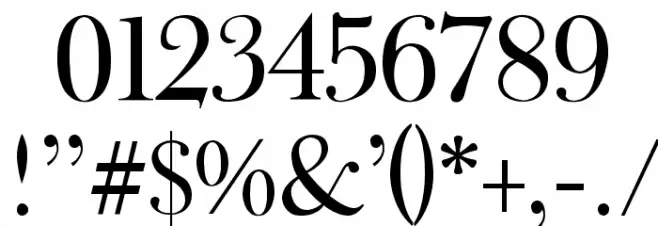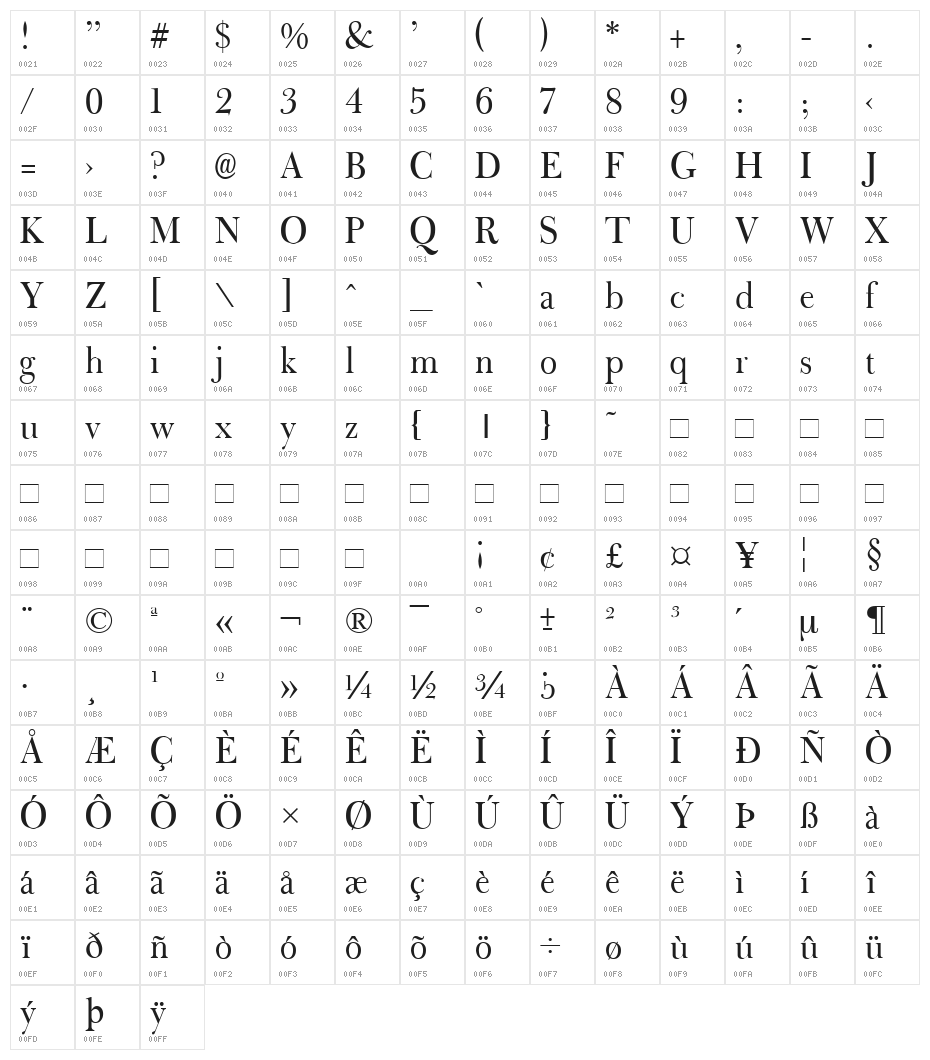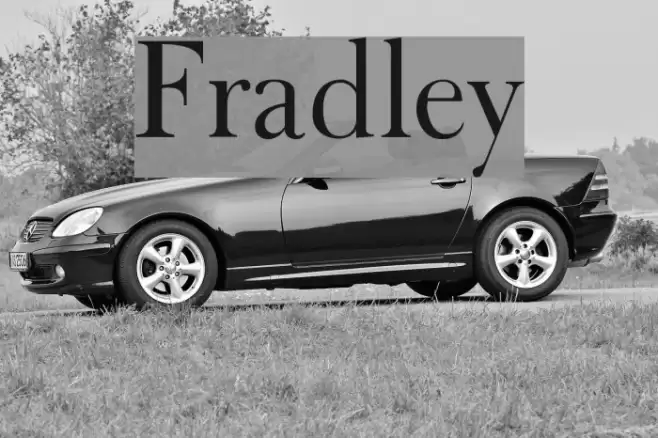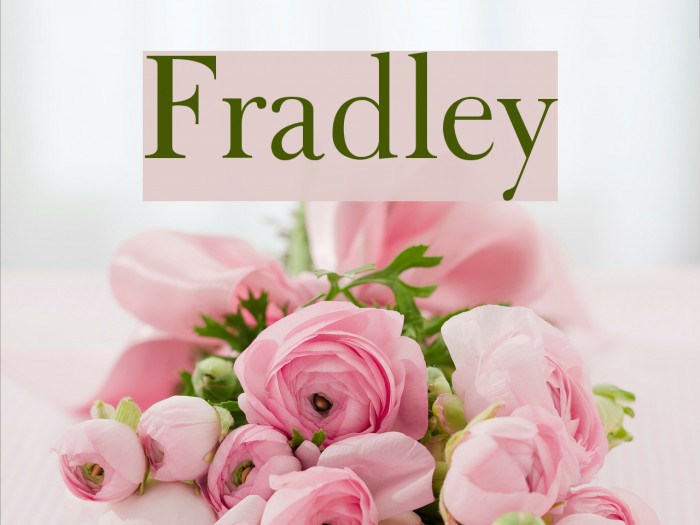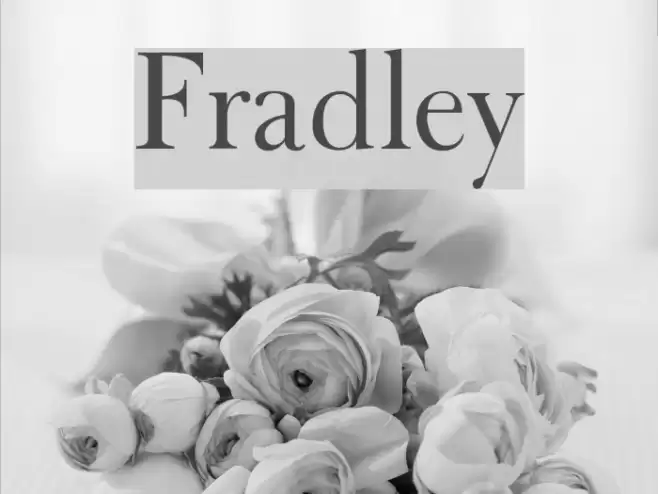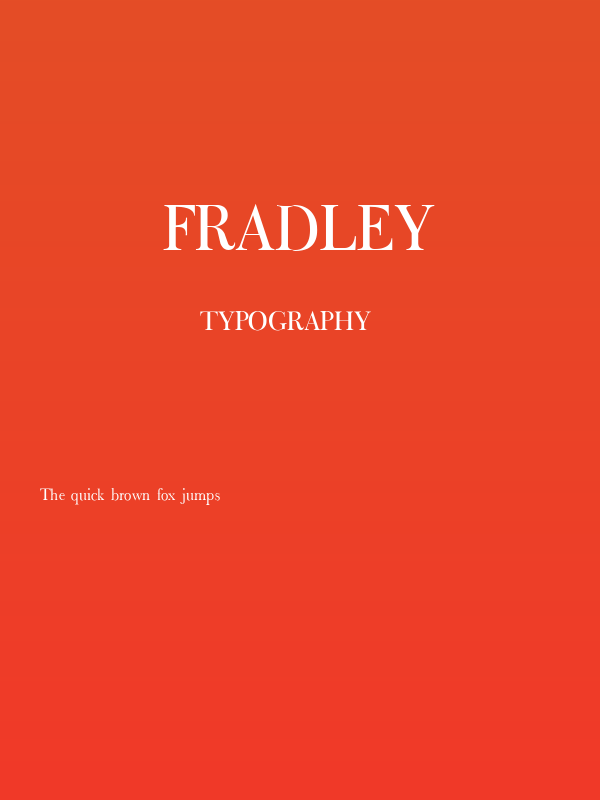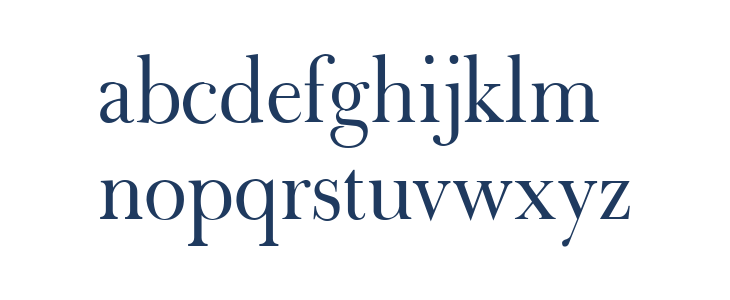
Fradley Font
Fradley Description
This font is a classic serif typeface characterized by its elegant and refined appearance. The letters feature high contrast between thick and thin strokes, giving it a sophisticated and timeless look. The serifs are sharp and pronounced, adding to the font's traditional aesthetic. The uppercase letters are bold and commanding, while the lowercase letters maintain a graceful flow. The numerals are well-proportioned, and the special characters are designed with the same attention to detail, ensuring consistency throughout the typeface. This font is suitable for projects that require a touch of elegance and formality.
| Proposed Projects | Ideal for book covers, formal invitations, branding for luxury products, and editorial design. |